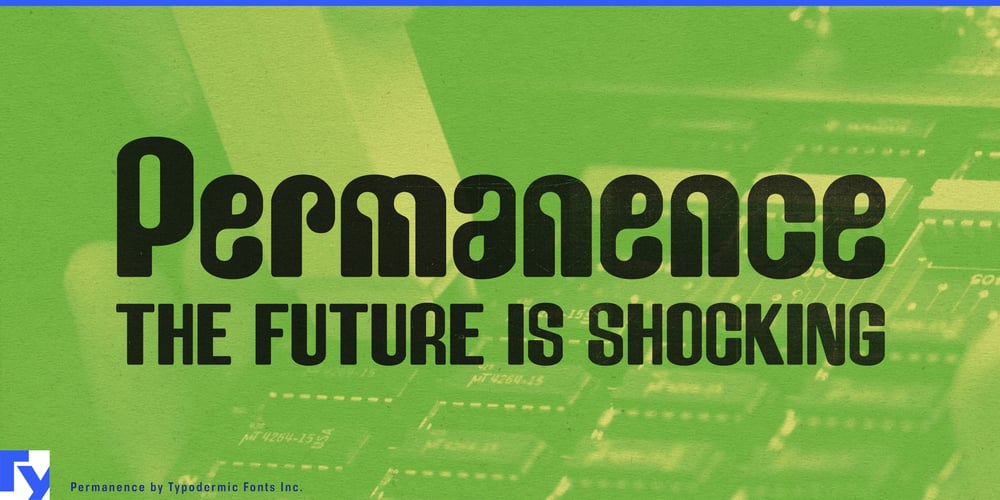
Permanence Font Family was designed by Ray Larabie and published by Typodermic. Permanence contains 1 styles and family package options. Step into the world of Permanence, a typeface that bridges the gap between yesterday’s vision of tomorrow and today’s cutting-edge design. Inspired by the iconic cover of Alvin Toffler’s seminal 1970 work “Future Shock,” Permanence captures the essence of an era when the future seemed boundless and technology promised to reshape humanity’s destiny.Permanence’s robust, angular forms evoke the sleek lines of imagined flying cars and the towering silhouettes of utopian cityscapes. Each character is a carefully crafted homage to the retro-futuristic aesthetic, balancing crisp edges with subtle curves that suggest both strength and dynamism. This is a time machine, transporting your designs to an age of unwavering optimism and technological wonder. In an age of rapid change, Permanence offers a refreshing constancy. Its timeless design resonates with the clean, functional ethos of mid-century modernism while remaining strikingly relevant in contemporary contexts. Use it to infuse your branding with a sense of established authority or to give your digital interfaces a touch of retrofuturistic flair. From sleek magazine layouts to eye-catching posters, Permanence commands attention and sparks imagination.True to its forward-thinking spirit, Permanence speaks the language of progress across borders. Its extensive character set embraces most Latin-based European writing systems, ensuring your message of innovation reaches a global audience. Whether you’re designing for English, French, Polish, or Indonesian markets, Permanence stands ready to articulate your vision with clarity and style. Don’t just design for the present—shape the future with Permanence. This typeface isn’t just a tool; it’s a statement. It declares that the spirit of innovation is alive and well, that the dreams of yesterday can inspire the realities of tomorrow.In a world of fleeting trends, choose a typeface that lives up to its name. Choose Permanence, and let your designs become timeless.